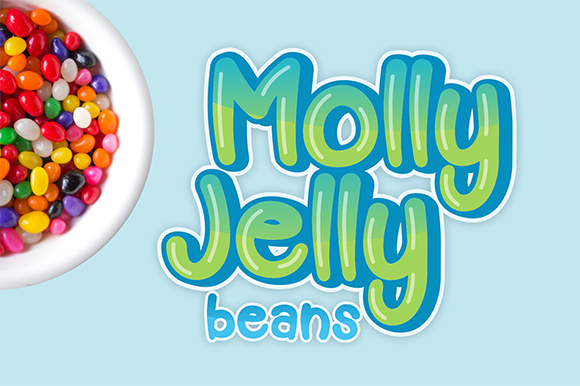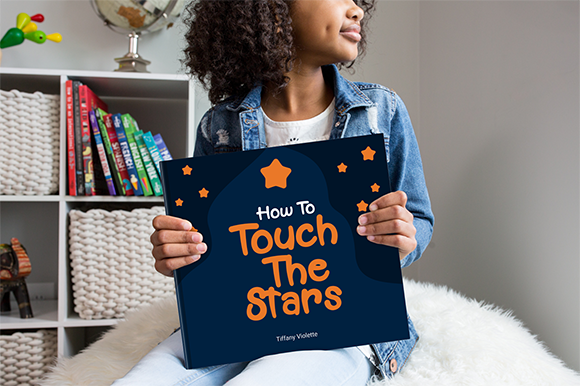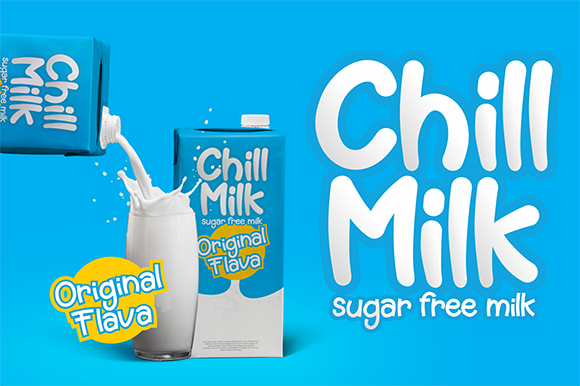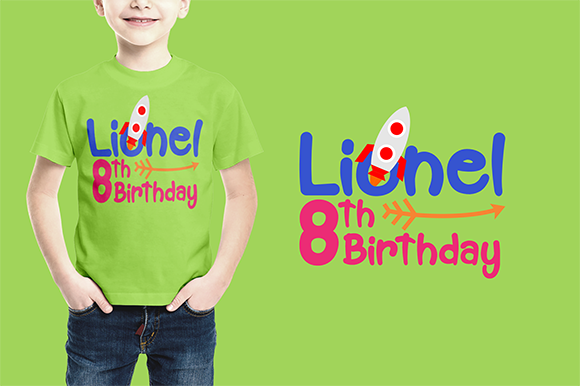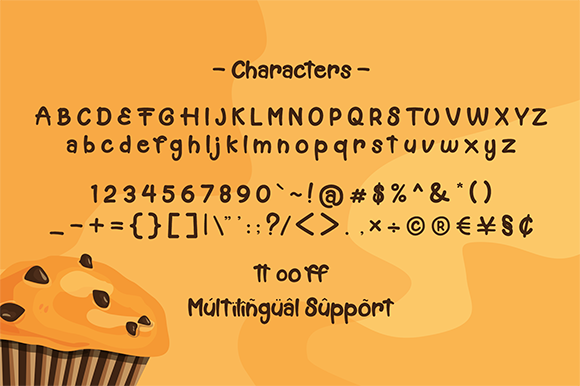
Introduction to Muffin Cake Font
Muffin Cake is a sweet and charming handwritten font, full of love.
Get inspired by its unique charm .
Key Features of Muffin Cake Font